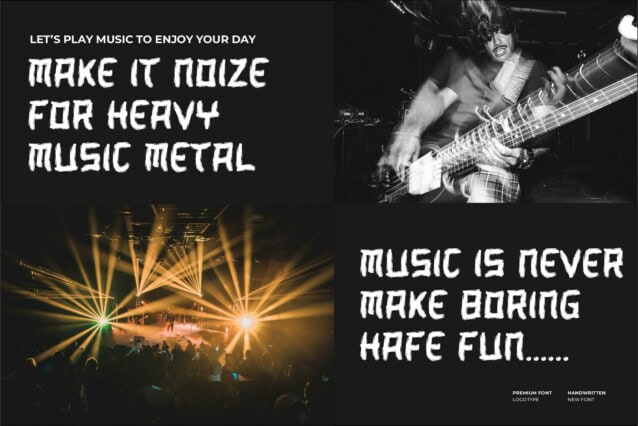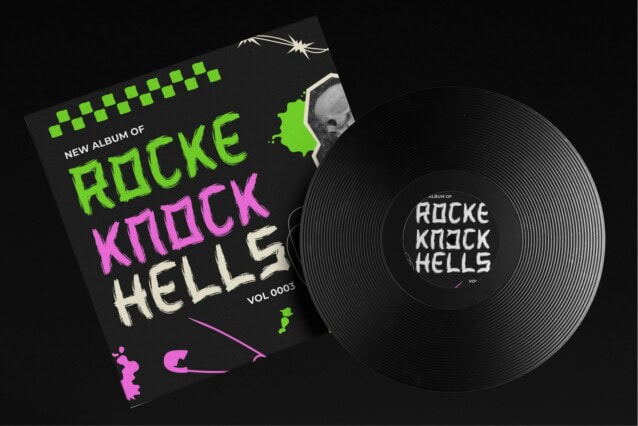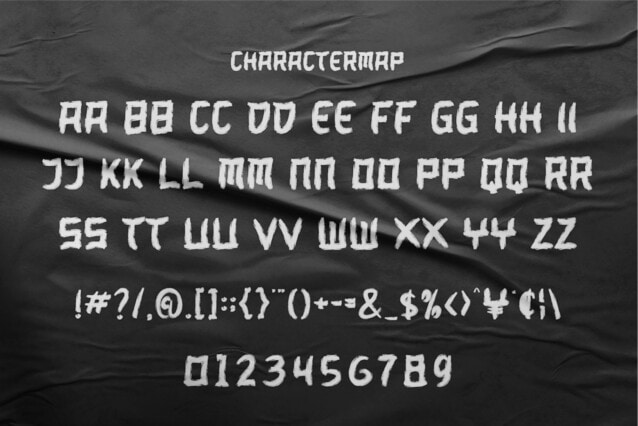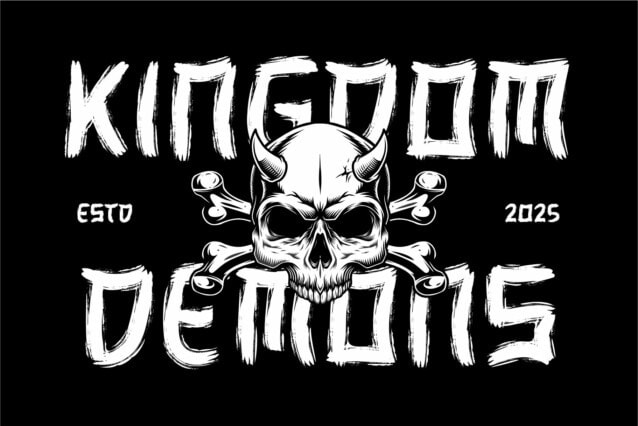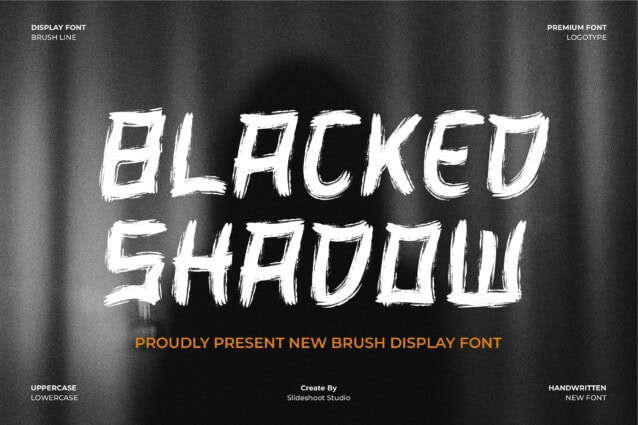
Blacked Shadow Font
Blacked Shadow Font is a modern, trendy, bouncy and cute display font. It has a unique character with wood theme. It is perfect to be combined with invitation card designs, company logos, movie titles, movie names, business cards, book titles, brand names and various other designs.